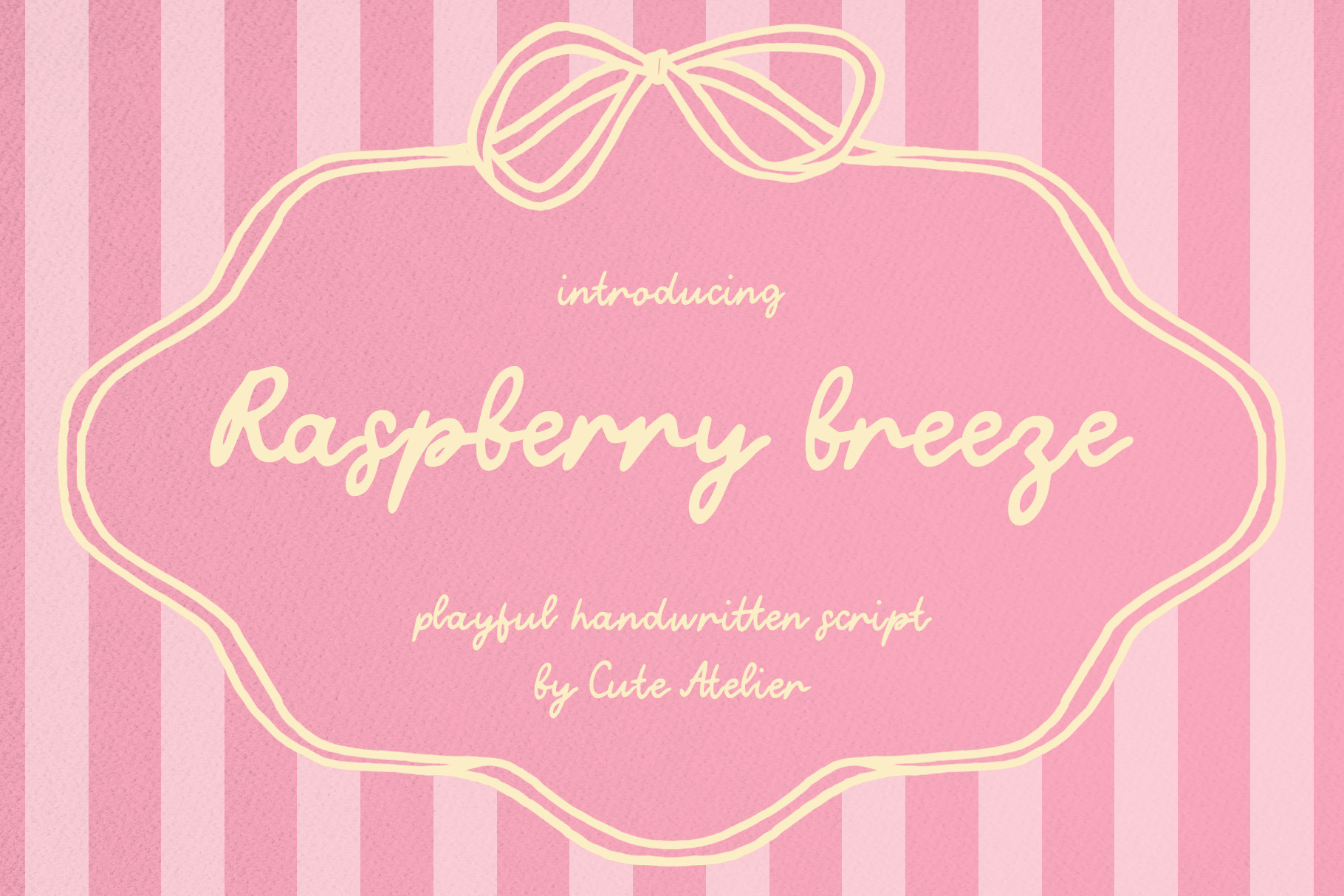
Raspberry beeze - handwritten font
Raspberry breeze is a soft handwritten script inspired by warm summer evenings, raspberry gardens, and cozy countryside moments. With its natural flowing strokes and playful handmade feel, this font brings a touch of summer charm to every design.
Imagine fresh berries in a wooden basket, sunlight through linen curtains, handwritten recipes, wildflowers, and slow mornings at a summer cottage - Raspberry breeze was made to capture that feeling.
Whether you're designing for a small creative business or creating dreamy aesthetic content, this font adds warmth, softness, and a nostalgic handmade touch.